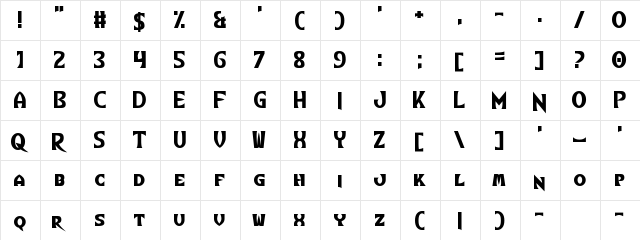
Ten Pin Regular
| Designer | Allison JJ |
Design Context for Ten Pin Typeface
Ten Pin is a composed and adaptable typeface that performs quietly and consistently across a wide range of design contexts.